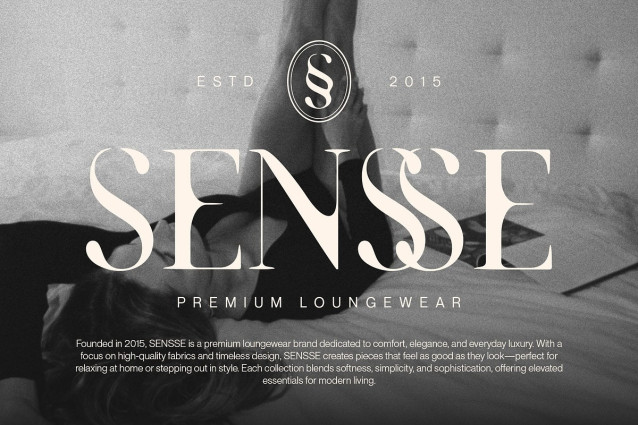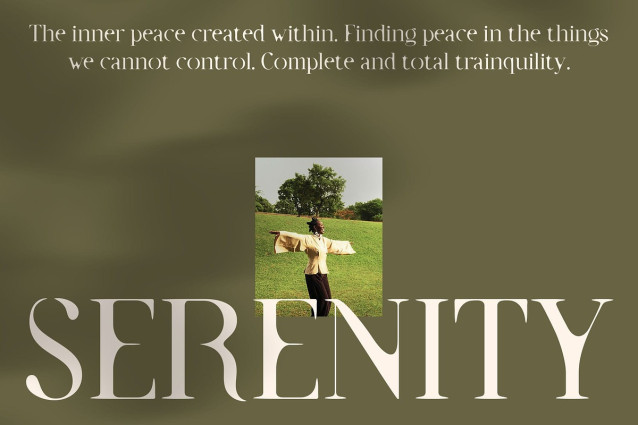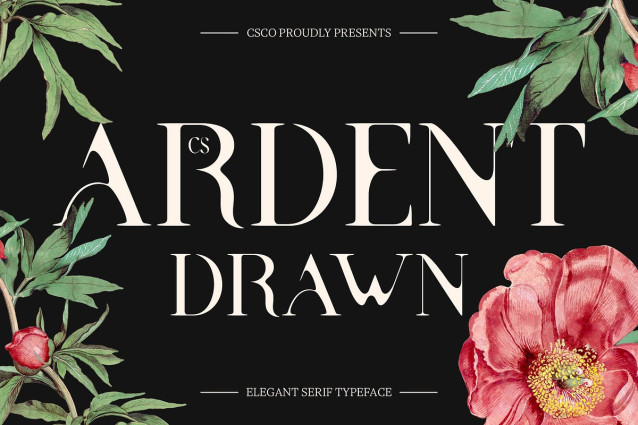
CS Ardent Drawn Font
CS Ardent Drawn Font is a modern serif font that combines clarity with elegance. Its clean and proportional letterforms provide a sleek, minimalist appearance that maintains sophistication. The serif details are subtle yet purposeful, giving the font a polished, upscale presence suited for modern applications.
Drawn Texture for Artistic Warmth Adding a unique layer of personality, the drawn effect introduces a handcrafted, organic texture. What sets this handcrafted font apart is its subtle drawn effect, which introduces an organic, handcrafted quality to the otherwise clean serif base. This added texture brings a tactile, artisanal depth—making the font feel more expressive and human. It adds warmth, emotion, and character to any layout without compromising elegance or modernity.
Perfect Balance of Luxury and Authenticity This editorial grace font strikes the perfect chord between modern luxury and creative character. It offers a professional tone that remains approachable, making it ideal for high-end branding, editorial layouts, and identity systems that aim to feel both elevated and personal.
Versatile for Editorials, Branding, and Creative Expression Whether you’re designing a fashion spread, premium packaging, or a unique brand identity, this subtle luxury font adapts beautifully. Its balance of structure and expression makes it a versatile choice for projects that value clarity, aesthetics, and emotional resonance.